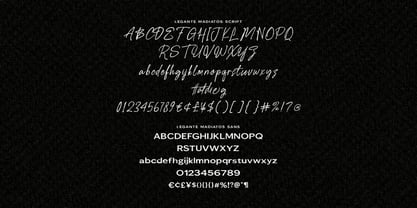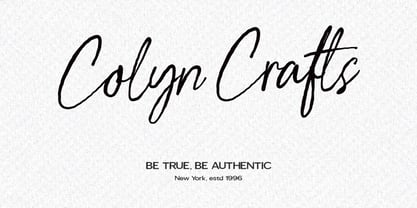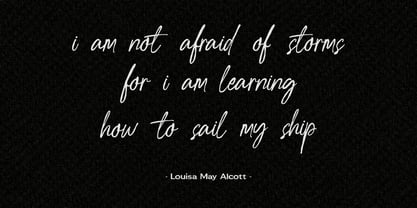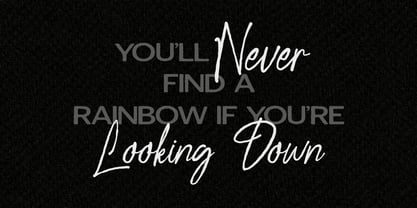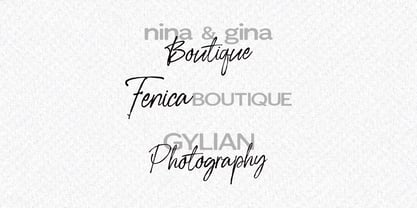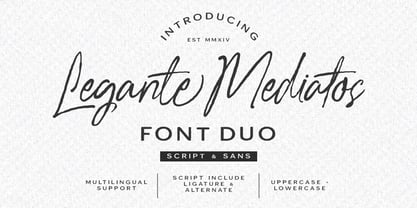
Legante Madiatos
by Maulana Creative
The Legante Madiatos Font Family was designed by Gilang Maulana and published by Maulana Creative. Legante Madiatos contains 2 styles and family package options. More about this family
Legante Mediatos Font Duo combines a flowing handwritten script with a clean, modern sans-serif. Designed to bring sophisticated contrast to creative visual compositions, this pairing features expressive cursive letterforms paired alongside crisp geometric lines. The harmonious blend of expressive strokes and structured proportions delivers an effortless aesthetic balance for projects requiring high typographic refinement.
Ideal for luxury visual branding, wedding invitations, product packaging, editorial layouts, and social media graphics, this versatile font pair offers seamless versatility. The combination allows for dynamic hierarchy, making it effortless to craft eye-catching titles alongside clean supporting text. Legante Mediatos provides timeless sophistication and aesthetic appeal for modern design applications.
Designers: Gilang Maulana
Foundry: Maulana Creative